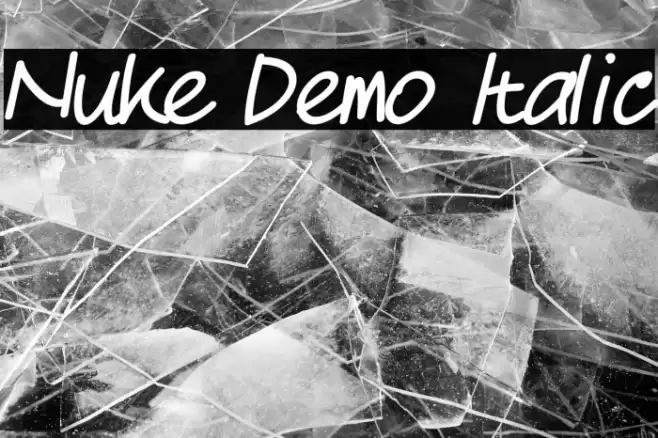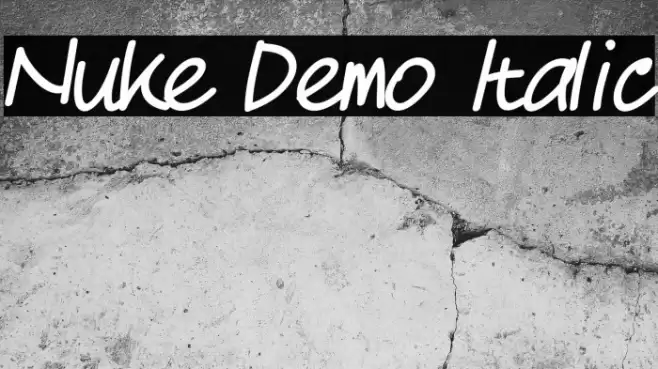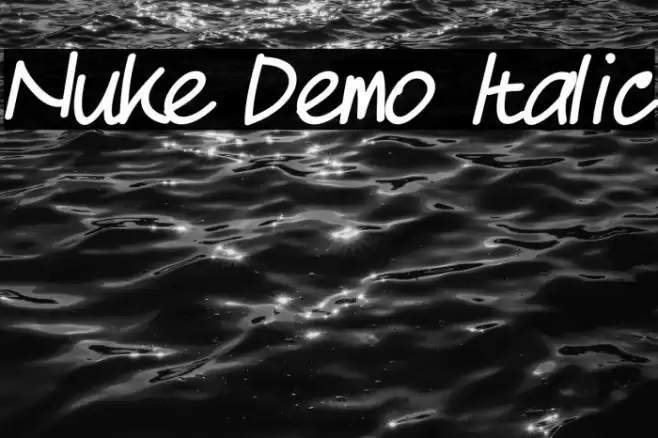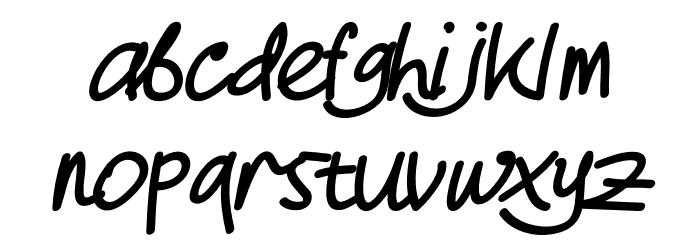
Nuke Demo Italic Font
Nuke Demo Italic Description
This font features a dynamic and energetic handwritten style with a distinct italic slant, giving it a sense of motion and fluidity. The uppercase letters are bold and slightly condensed, while the lowercase letters maintain a consistent flow with rounded edges and smooth curves. The font exudes a casual yet confident personality, making it suitable for creative and informal applications. The character spacing is relatively tight, enhancing its cohesive appearance. The absence of serifs and the uniform stroke width contribute to its modern and approachable aesthetic.
A dynamic, handwritten italic font with a casual and modern feel from Uncategorized fonts.
- Proposed Projects: Ideal for creative projects such as greeting cards, invitations, personal branding, and social media graphics.
- Character Spacing: Tight
- Use Case: Logos, Headlines, Informal Text